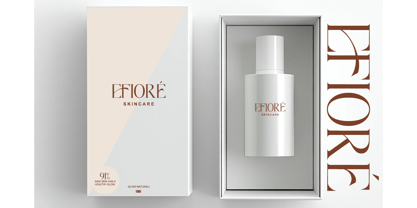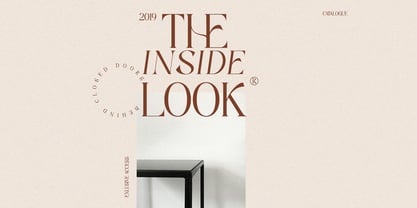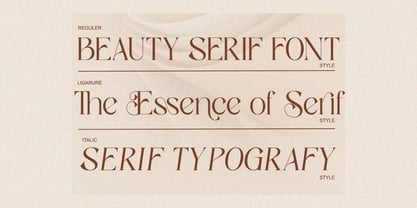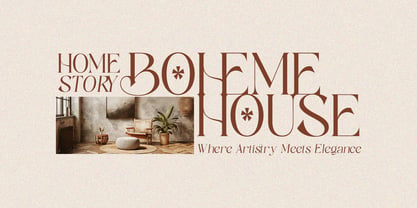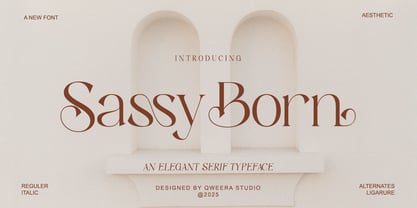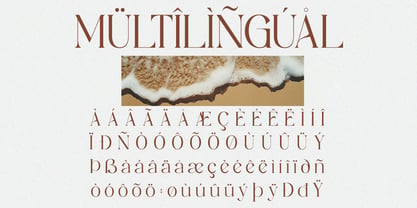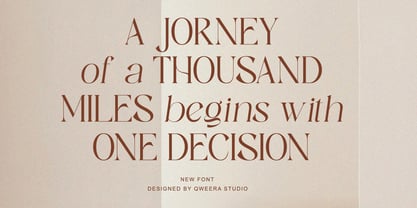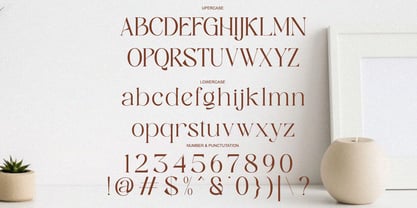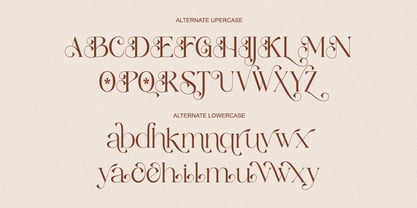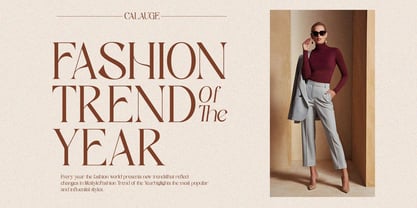
Sassy Born
Sassy Born - Modern Elegant Luxury Serif Font for Premium Branding
Sassy Born is a captivating serif typeface that redefines luxury with its bold elegance and contemporary flair. Featuring both regular and italic versions with exquisite alternates and ligatures, this font is expertly crafted for high-impact branding, sophisticated logos, premium packaging, and editorial designs that demand attention.
Where Bold Elegance Meets Modern Sophistication
With its confident serif structure and graceful italic counterpart, Sassy Born delivers unparalleled versatility for brands seeking both prestige and personality. The carefully designed alternates and ligatures empower you to create distinctive typographic compositions with perfect balance and style.
Premium Features Include:
• Luxury Serif Design – Bold yet refined letterforms for maximum impact
• Dual Style Versions – Regular & italic for dynamic visual hierarchy
• Exclusive Alternates – 30+ special glyphs for unique branding
• Artistic Ligatures – Seamless letter connections for flawless typography
• Universal Application – From luxury packaging to billboard designs
• Extended Language Support – Comprehensive Latin character set
Make a Statement with Sassy Born's Confident Elegance Ideal for:
• Luxury fashion branding
• High-end cosmetic packaging
• Premium restaurant identities
• Magazine headline typography
• Elegant event promotions